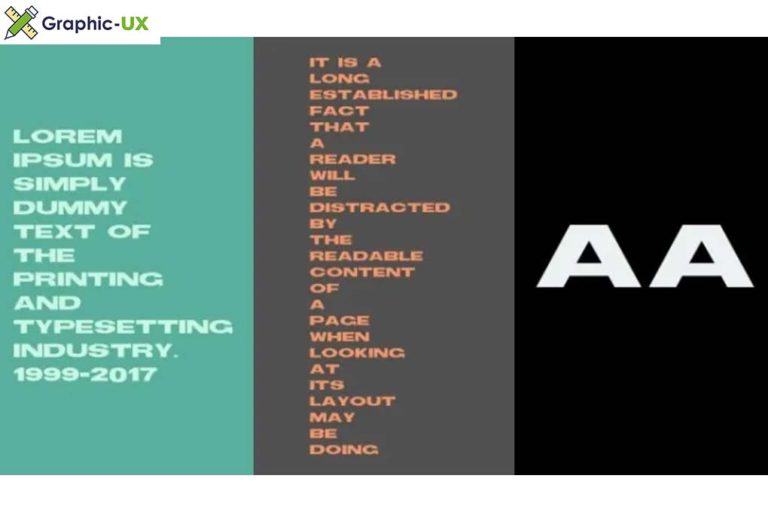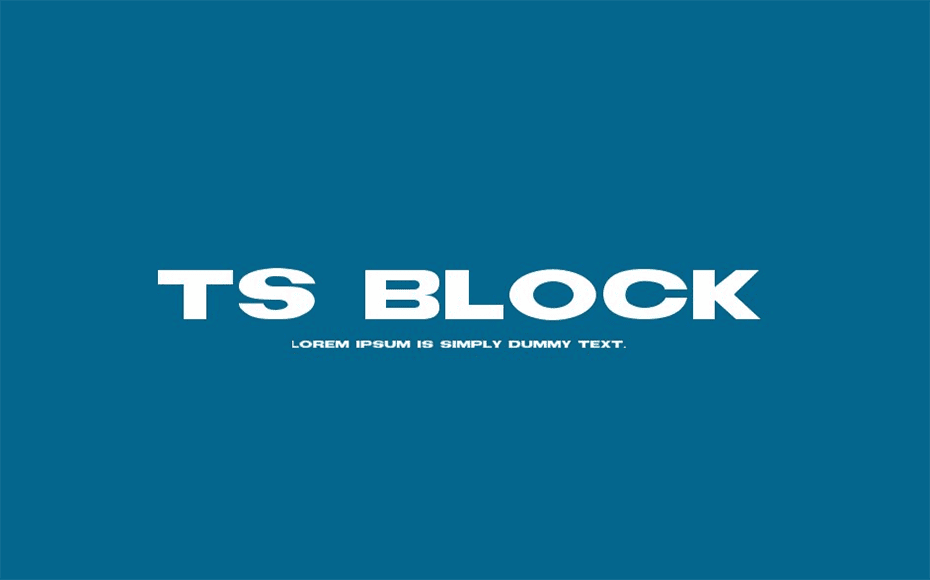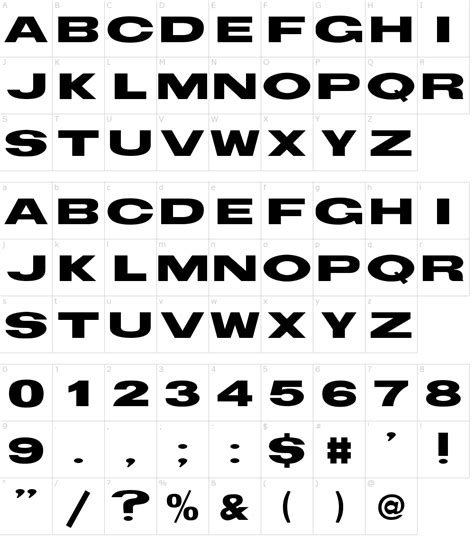
Ts Block Font . It is free for personal use and. It supports latin, greek, cyrillic, and other languages and symbols.
Web download and install the ts block font by steve ferrera, a headline font with a blocky and heavy style. It supports latin, greek, cyrillic, and other languages and symbols. Ts block font download is available free from fontget.
This font is striking and has a simple,. Web ts block is a modern familiar sans serif display font that was designed and published by steve ferrera. Web ts block is a sans serif font by steve ferrera, with 2,338,772 downloads and 654 glyphs. Web ts block font.
Ts Block Font - Web ts block is a sans serif font by steve ferrera, with 2,338,772 downloads and 654 glyphs. It supports latin, greek, cyrillic, and other languages and symbols. You can download it for free for personal use, or use the text generator tool to create text graphics with different. This font is striking and has a simple,. Ts block font download.
Ts Block Font - Ts block font download is available free from fontget. It supports latin, greek, cyrillic, and other languages and symbols. Web ts block is a sans serif font by steve ferrera, with 2,338,772 downloads and 654 glyphs. Ts block sans serif font is a bold sans serif font crafted & designed by steve ferrera. You can download it for free for.
Ts Block Font - The font is free for personal use and has been downloaded 14,225 times. Ts block sans serif font is a bold sans serif font crafted & designed by steve ferrera. It is free for personal use and. Web ts block is a sans serif font by steve ferrera, with 2,338,772 downloads and 654 glyphs. Download it for free for.
Ts Block Font - Ts block font download is available free from fontget. Web ts block is a sans serif font by steve ferrera, with 2,338,772 downloads and 654 glyphs. Ts block sans serif font is a bold sans serif font crafted & designed by steve ferrera. Web ts block is a modern familiar sans serif display font that was designed and published by.
Ts Block Font - Web ts block is a modern familiar sans serif display font that was designed and published by steve ferrera. You can download it for free for personal use, or use the text generator tool to create text graphics with different. This font is striking and has a simple,. Ts block is a free font for personal use created. Web download.
Ts Block Font - Web ts block font. The font is free for personal use and has been downloaded 14,225 times. Ts block font download is available free from fontget. Web ts block sans serif font is a sans serif font that is bold in form & is developed & designed by steve ferrera. It supports latin, greek, cyrillic, and other languages and symbols.
Ts Block Font - Web ts block is a sans serif font by steve ferrera, with 2,338,772 downloads and 654 glyphs. Web ts block is a modern familiar sans serif display font that was designed and published by steve ferrera. Web ts block sans serif font is a sans serif font that is bold in form & is developed & designed by steve ferrera..
Ts Block Font - Download it for free for. The font is free for personal use and has been downloaded 14,225 times. Web ts block is a modern familiar sans serif display font that was designed and published by steve ferrera. Ts block is a free font for personal use created. Web ts block is a sans serif font designed by steve ferrera.
Ts Block Font - Ts block sans serif font is a bold sans serif font crafted & designed by steve ferrera. Ts block is a free font for personal use created. Web ts block font. Web ts block is a sans serif font by steve ferrera, with 2,338,772 downloads and 654 glyphs. Ts block font download is available free from fontget.
Ts Block Font - Ts block font download is available free from fontget. You can download it for free for personal use, or use the text generator tool to create text graphics with different. Ts block is a free font for personal use created. Web ts block is a sans serif font by steve ferrera, with 2,338,772 downloads and 654 glyphs. It supports latin,.
Ts Block Font - The font is free for personal use and has been downloaded 14,225 times. Download it for free for. Web ts block is a modern familiar sans serif display font that was designed and published by steve ferrera. You can download it for free for personal use, or use the text generator tool to create text graphics with different. Web ts.
Ts Block Font - Web download and install the ts block font by steve ferrera, a headline font with a blocky and heavy style. Web ts block is a sans serif font designed by steve ferrera. Web ts block is a sans serif font by steve ferrera, with 2,338,772 downloads and 654 glyphs. This font is striking and has a simple,. Download it for.
Ts Block Font - Web download and install the ts block font by steve ferrera, a headline font with a blocky and heavy style. Web ts block font. This font is striking and has a simple,. Web ts block is a sans serif font by steve ferrera, with 2,338,772 downloads and 654 glyphs. It is free for personal use and.